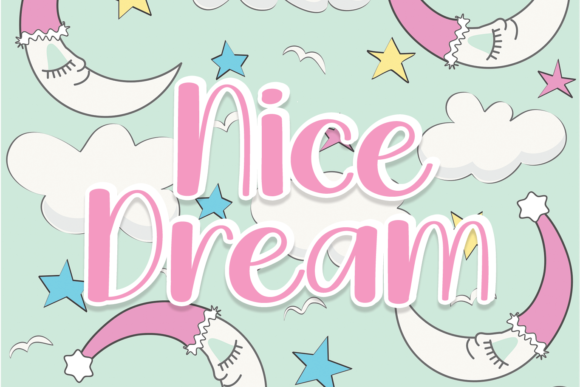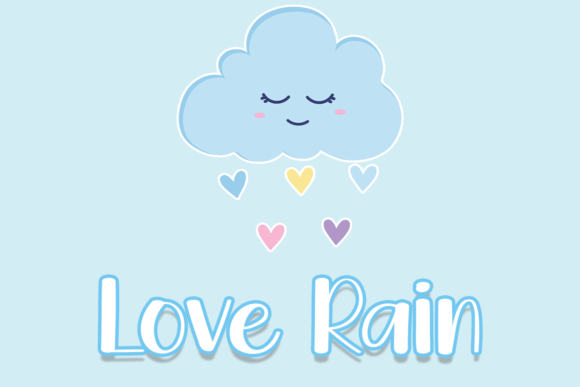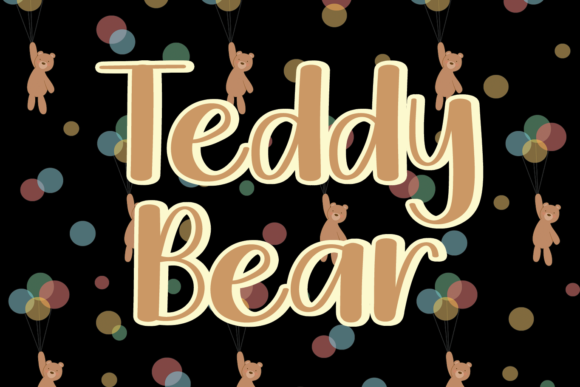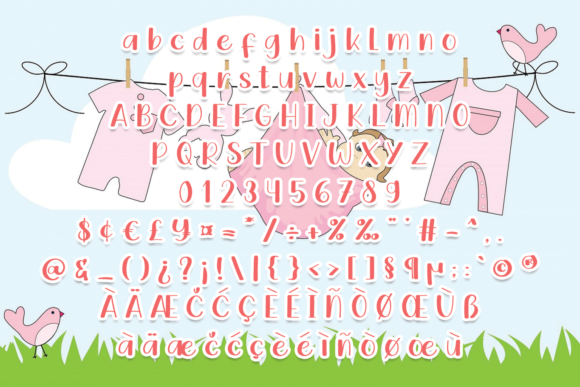
Meet the Baby Girl Font: A Delightful Addition to Your Design Toolbox
Have you ever stumbled upon a font that instantly sparks joy and makes you want to create something special? For designers, that moment is priceless. It’s when the perfect combination of style, whimsy, and functionality comes together, elevating our designs to new heights. For me, that moment happened when I discovered the Baby Girl Font – a charming display font that’s perfect for bringing a touch of warmth and playfulness to any project.
Baby Girl Font is a delightful display font that’s designed to add a smile to your designs. Whether you’re creating a children’s book cover, a poster for a baby shower, or product packaging for a kids’ toy, this font is sure to bring a sense of wonder and magic to your work. Its value lies in its versatility, making it an essential addition to any designer’s toolkit.
Baby Girl Font Key Features
- Font Style: Cursive Script Font
- Unique Characteristics: Whimsical, playful, and elegant design; perfect for baby-themed projects, invitations, and gifts
Baby Girl Font Review
Overall, the Baby Girl Font is a sweet and feminine font, perfect for creating a whimsical atmosphere. ✨ The subtle curves and rounded edges give it a soft, endearing feel that’s perfect for baby-related projects or anything that needs a touch of innocence.
Here are some of the things that I love about this font:
- ✨ The font is highly customizable, allowing you to adjust the size, color, and spacing to fit your design needs.
- ✨ The font is available in a range of styles, including regular, bold, and italic, which makes it versatile and easy to use.
- ✨ The font is highly legible, even at smaller sizes, which makes it perfect for use in body text or for creating lists.
- ⚠️ The font may not be suitable for use in bold or large sizes, as it can become pixelated and lose its smooth texture.
- ⚠️ The font is not available in a range of weights, which may limit its use in certain design contexts.
Overall, the Baby Girl Font is a lovely and charming font that’s perfect for creating a soft, feminine look. While it has some limitations, it’s a great choice for designers who want to add a touch of sweetness to their projects.
Here are some tips for getting the most out of the Baby Girl Font:
- Use it for invitations, greeting cards, and other special occasions.
- Pair it with pastel colors and floral patterns for a soft and feminine look.
The Baby Girl Font is commonly used for:
- Baby shower invitations and decorations. Alternatives to “Baby Girl Font” for Designers
- Choose a light pink or pastel background color to match the baby girl theme.
- Use the Baby Girl Font to create a customized quote or name for the baby, such as “Sweet Dreams” or “Lily Rose”.
- Add some cute and playful illustrations, such as clouds, flowers, or butterflies, to complement the font.
- Use a mix of serif and sans-serif fonts to add visual interest and create a unique look.
- Choose a bold and bright color scheme to match the playful and whimsical theme.
- Consider adding some texture or pattern to the background to give it a more organic feel.
- Use the Baby Girl Font to create a customized title or heading for the invitation, such as “Baby Shower” or “Welcome Little One”.
- Add some delicate and feminine illustrations, such as flowers or ribbons, to complement the font.
- Choose a soft and pastel color scheme to match the baby girl theme.
3 Creative Project Ideas Using “Baby Girl Font”
Project 1: Whimsical Nursery Wall Art
Create a beautiful and eye-catching nursery wall art using the “Baby Girl Font”. This project is perfect for new parents who want to add a personal touch to their baby’s nursery.
Project 2: Baby Shower Invitations
Design beautiful and elegant baby shower invitations using the “Baby Girl Font”. This project is perfect for expecting parents who want to create a special and memorable occasion.